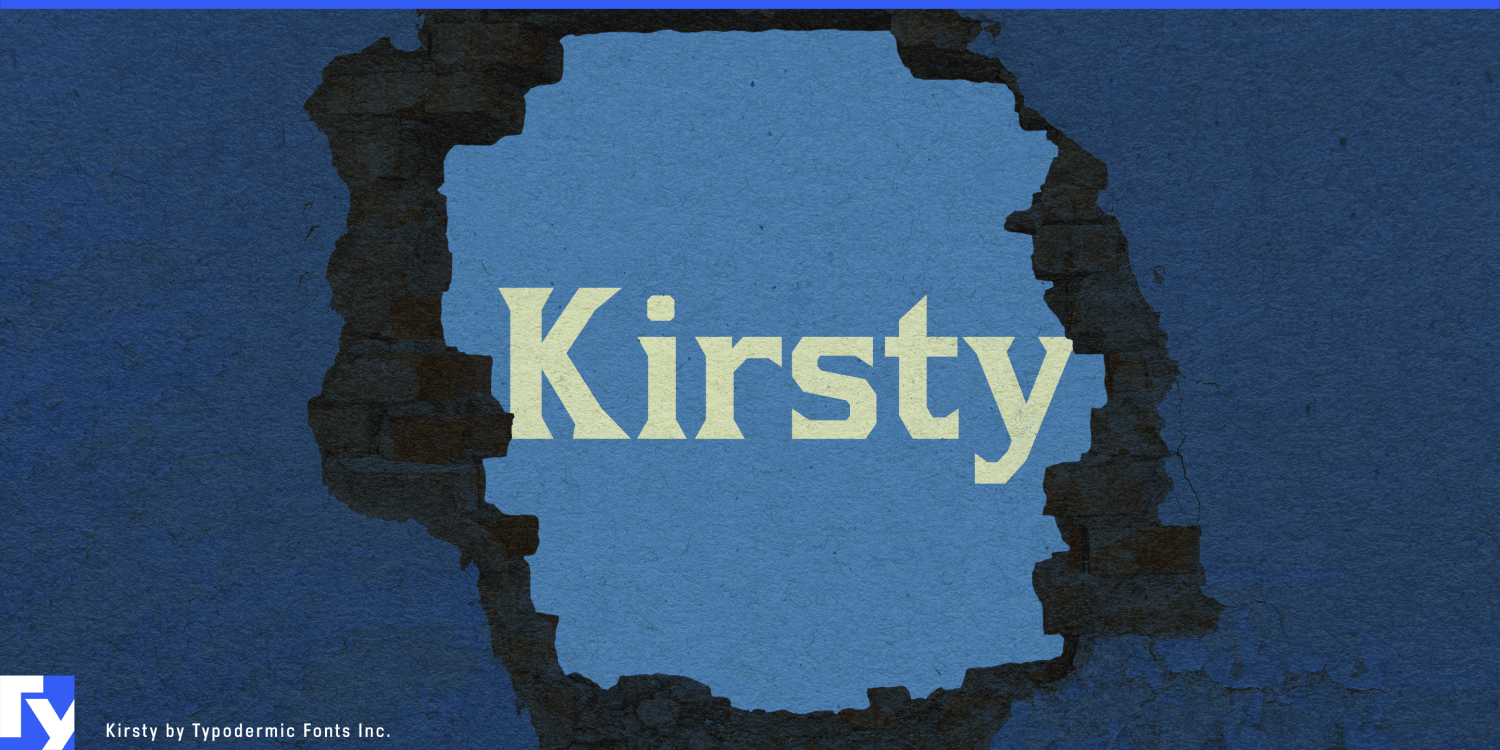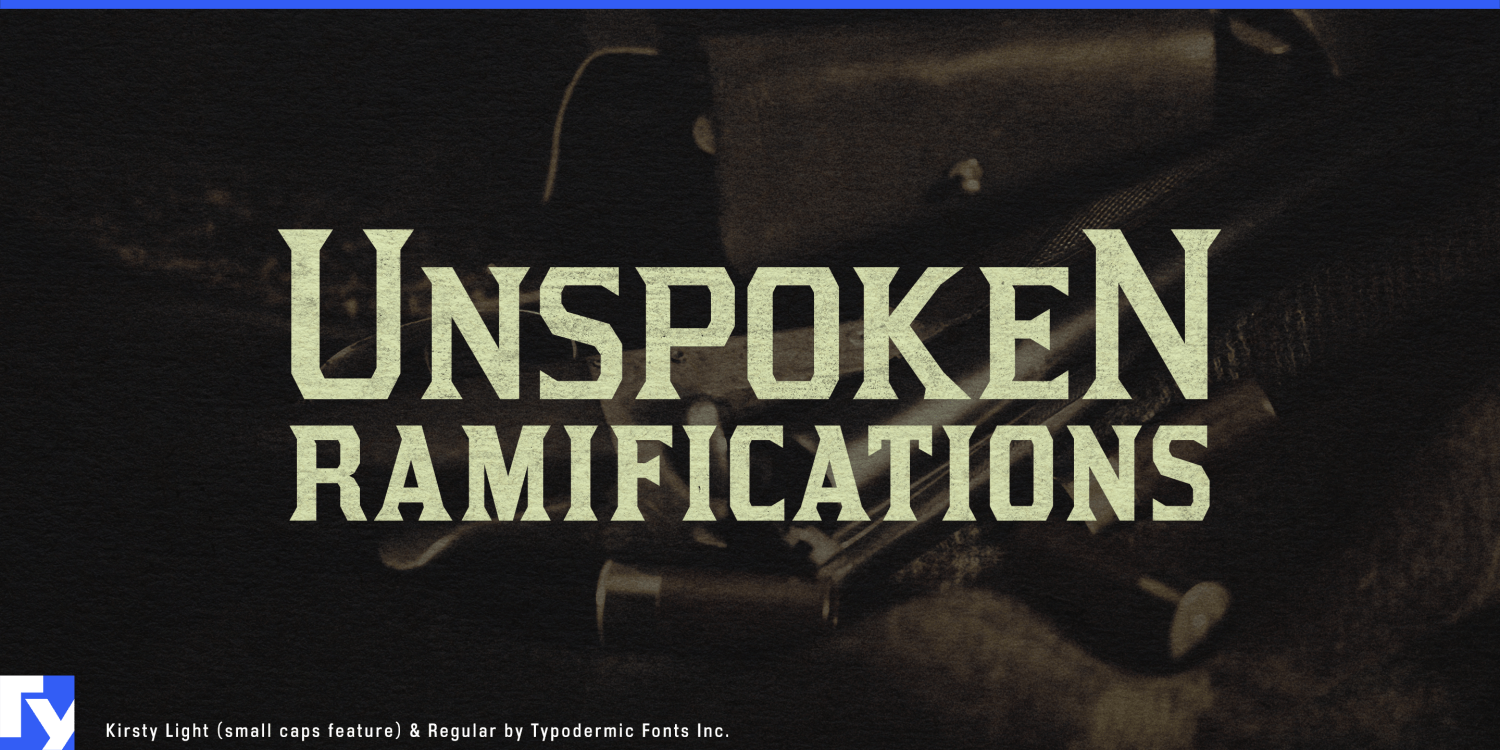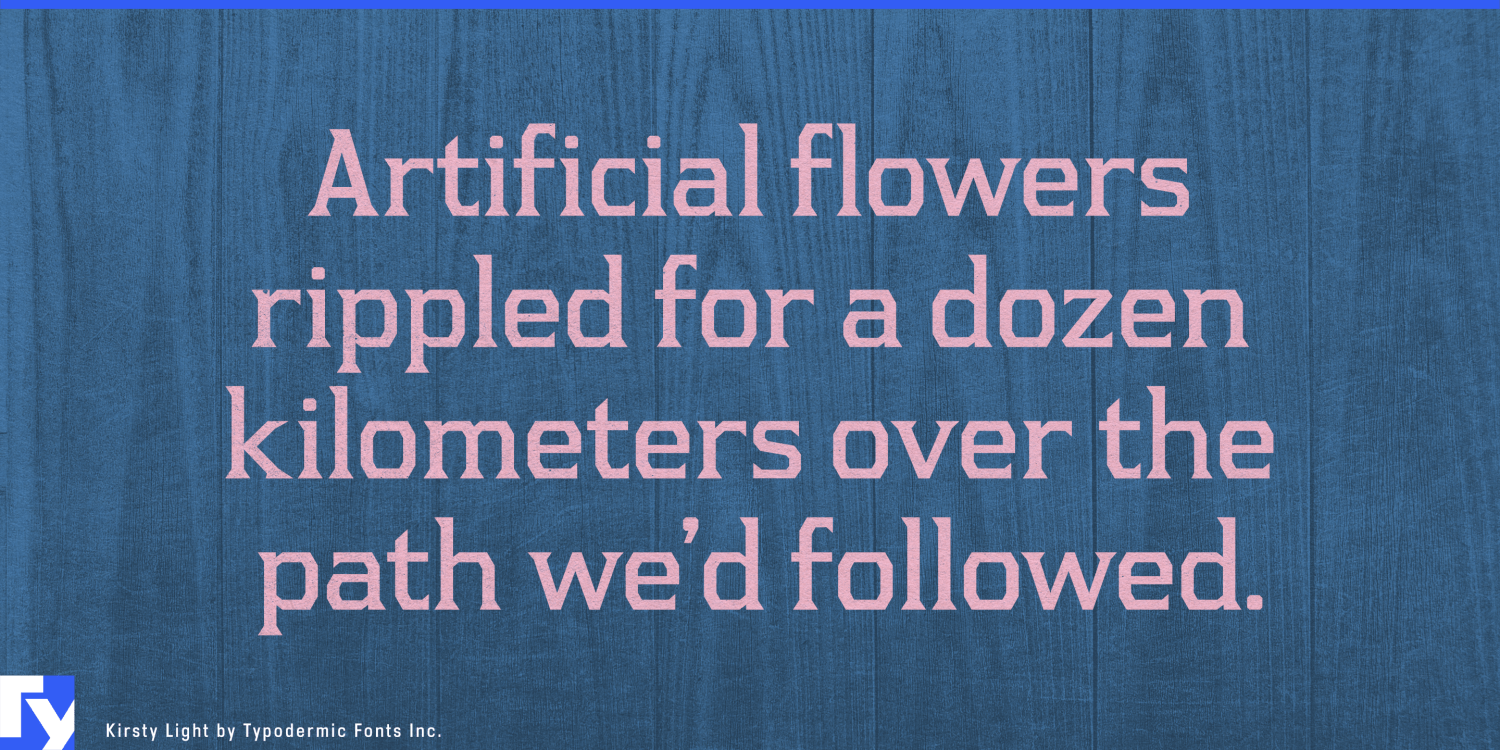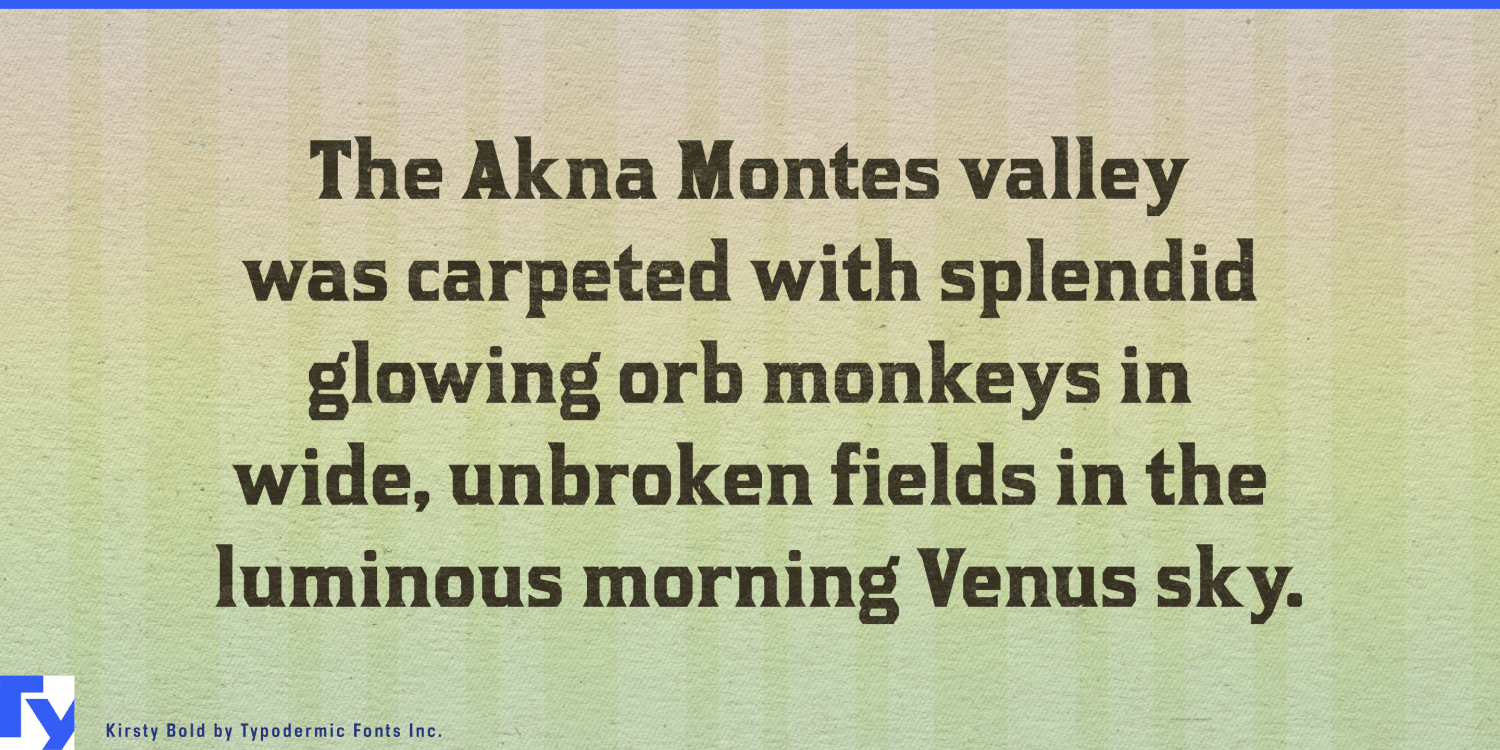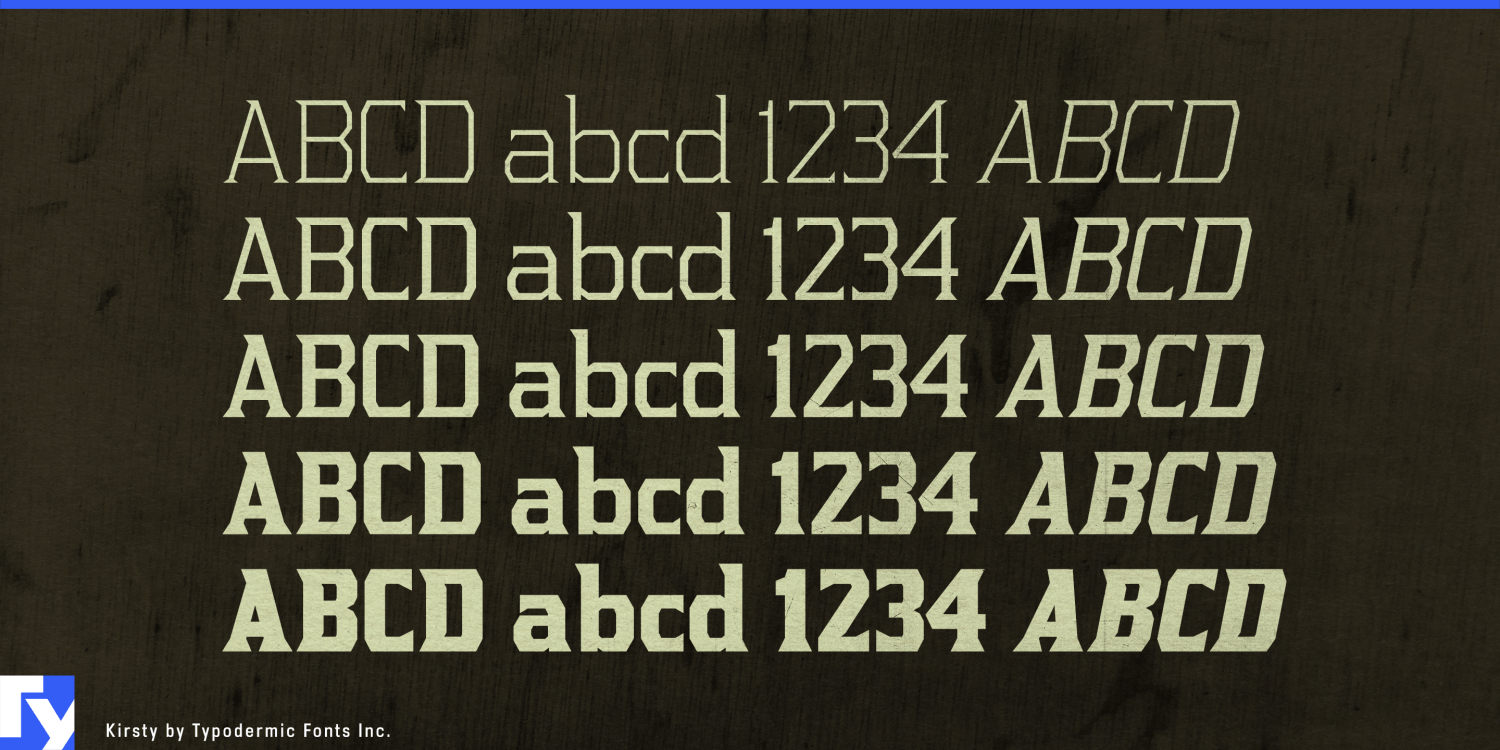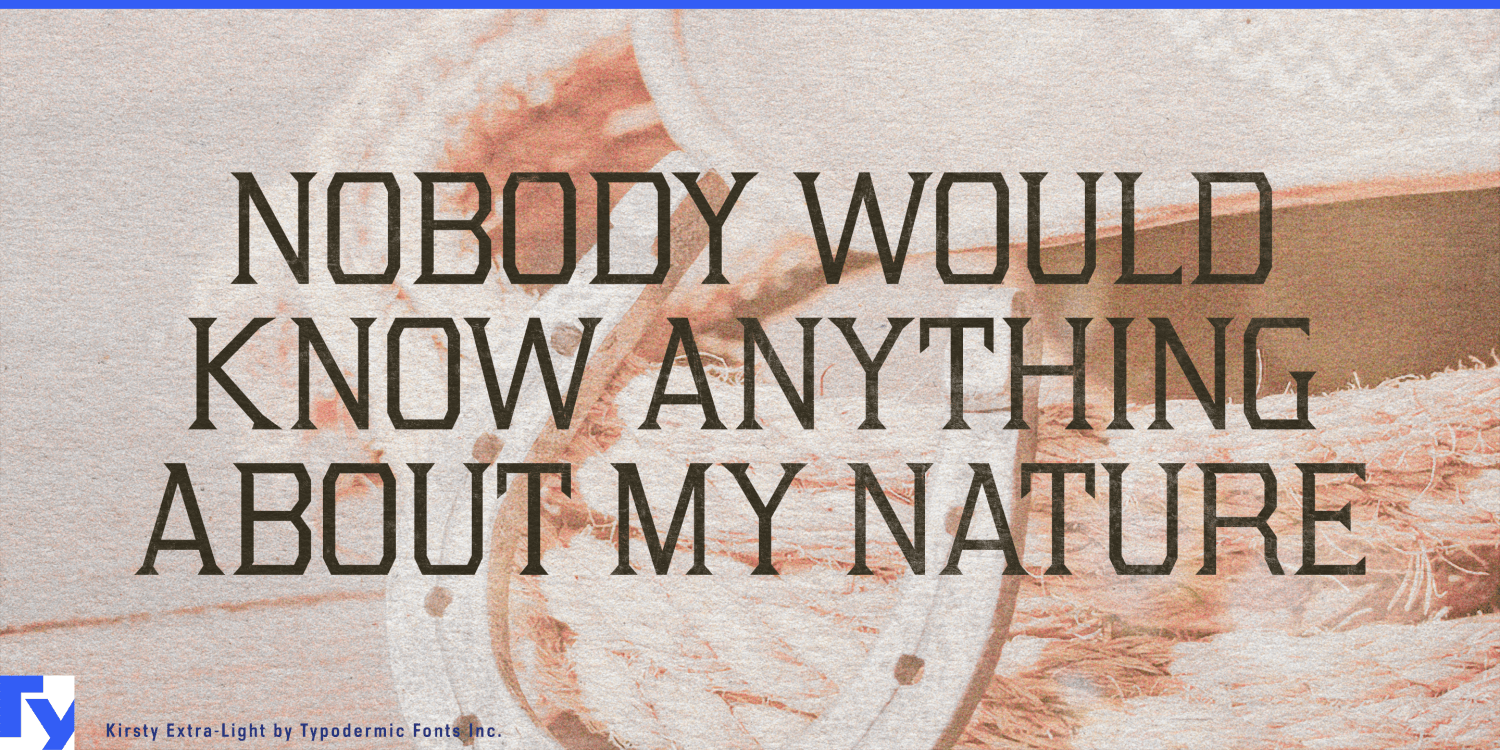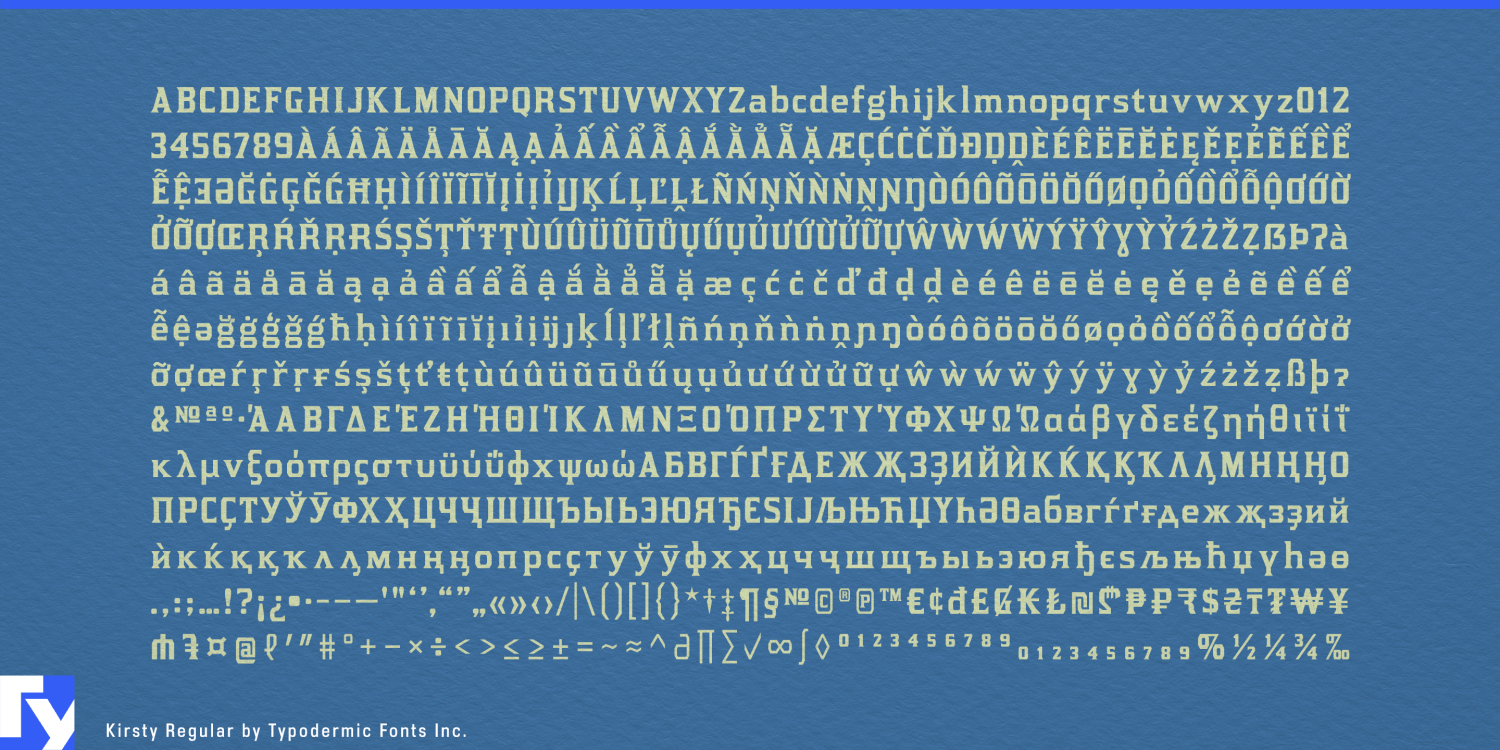
Kirsty
About Kirsty
Step aboard the Kirsty Express—a typeface that chugs along the tracks of history while steaming full speed into the future. This isn’t just a font; it’s a time machine disguised as letterforms, whisking you back to the golden age of…